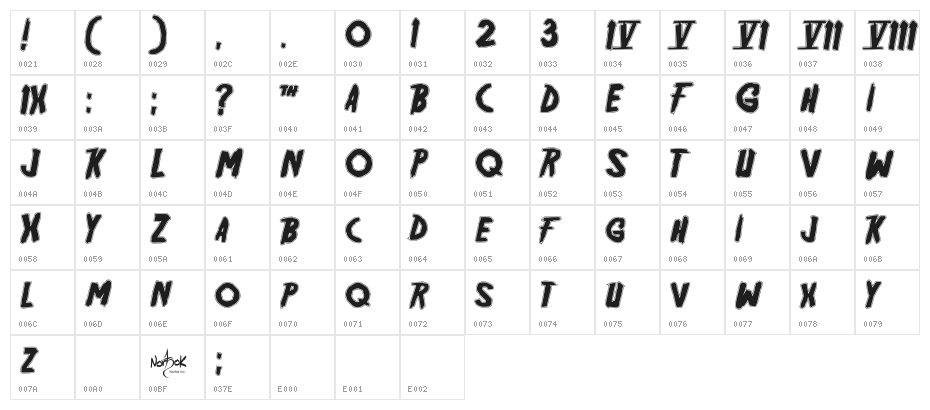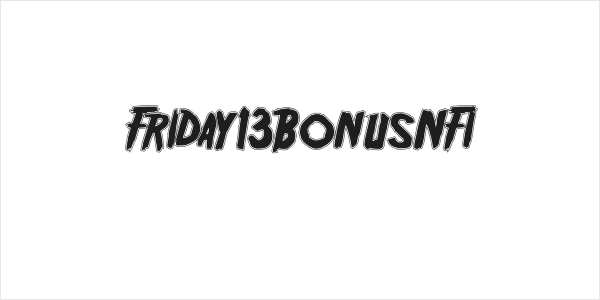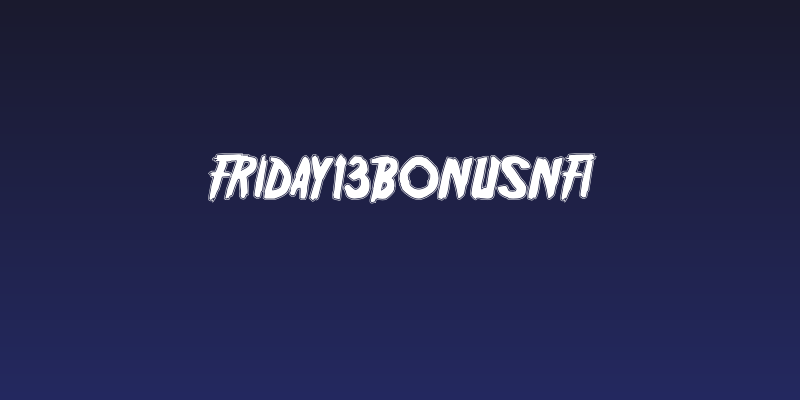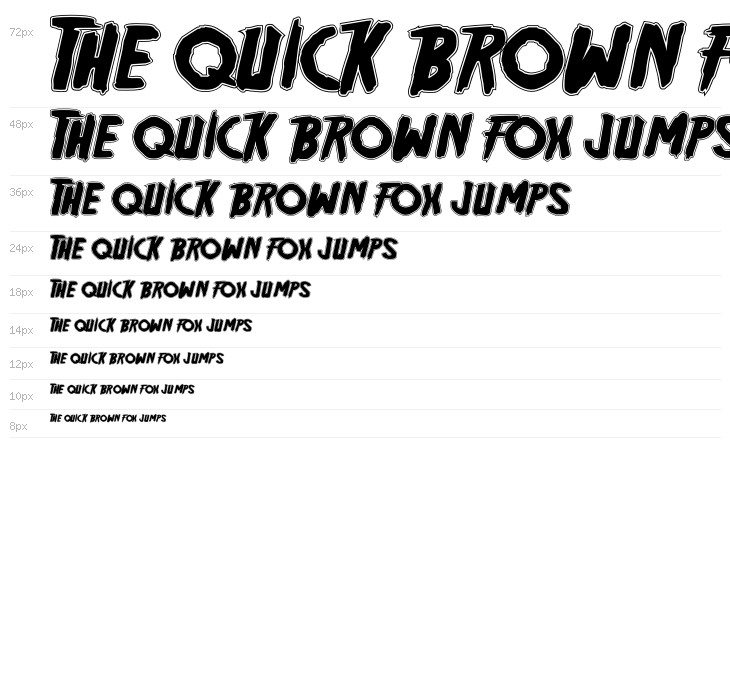
Friday13BonusNFI Font
| Caso d'uso | Headlines, Posters, Themed Events |
| Progetti proposti | Ideal for horror-themed designs, movie posters, Halloween invitations, or any project needing a dramatic flair. |